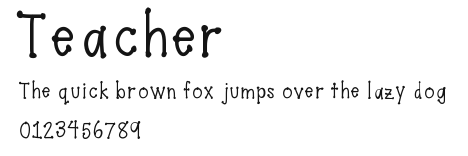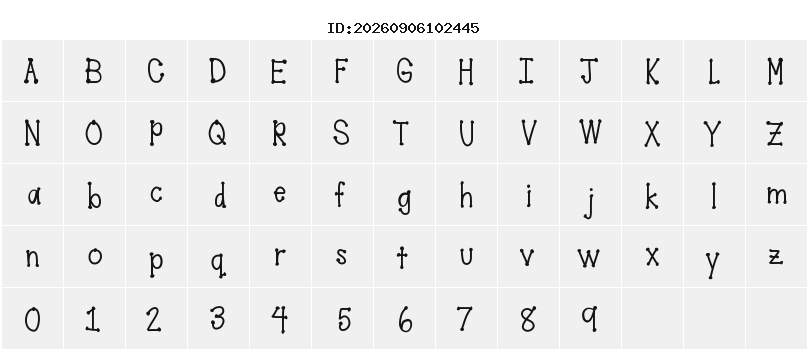
• Font Name: Teacher
• Full Font Name: Teacher
About Teacher.ttf
Teacher.ttf is a modern, elegant sans-serif font designed for ultimate readability and visual harmony. Perfect for branding, headlines, web design, and print materials.